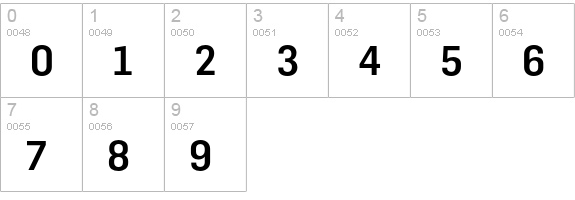
FlamaMedium Font Details
FlamaMedium is a versatile and contemporary font that strikes the perfect balance between elegance and readability. With its clean lines and subtle curves, this typeface exudes a sense of modern sophistication that is perfect for a wide range of design projects. Whether you are creating a sleek logo, designing a stylish website, or crafting eye-catching marketing materials, FlamaMedium is sure to make a lasting impression. The best part? FlamaMedium is available for free download at FontsMarket.com. This means that you can access this high-quality font without having to spend a dime. So go ahead and elevate your designs with FlamaMedium - the stylish and versatile font that won't break the bank.